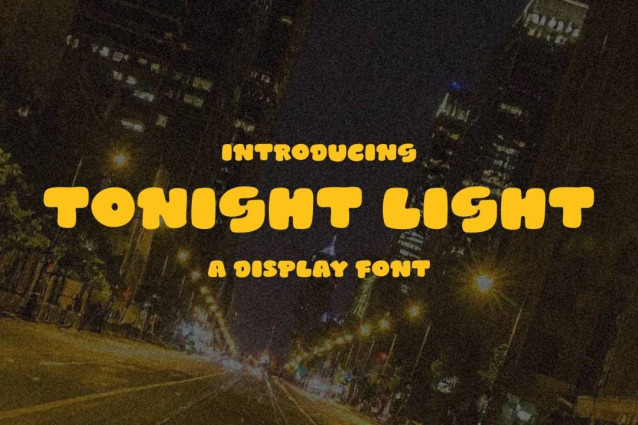
Tonight Light Font
Tonight Light Font is a simple and modern display font suitable for quotes, logos, headings, titles, and many more. Use it on any of your creative projects, and your designs will become outstanding!